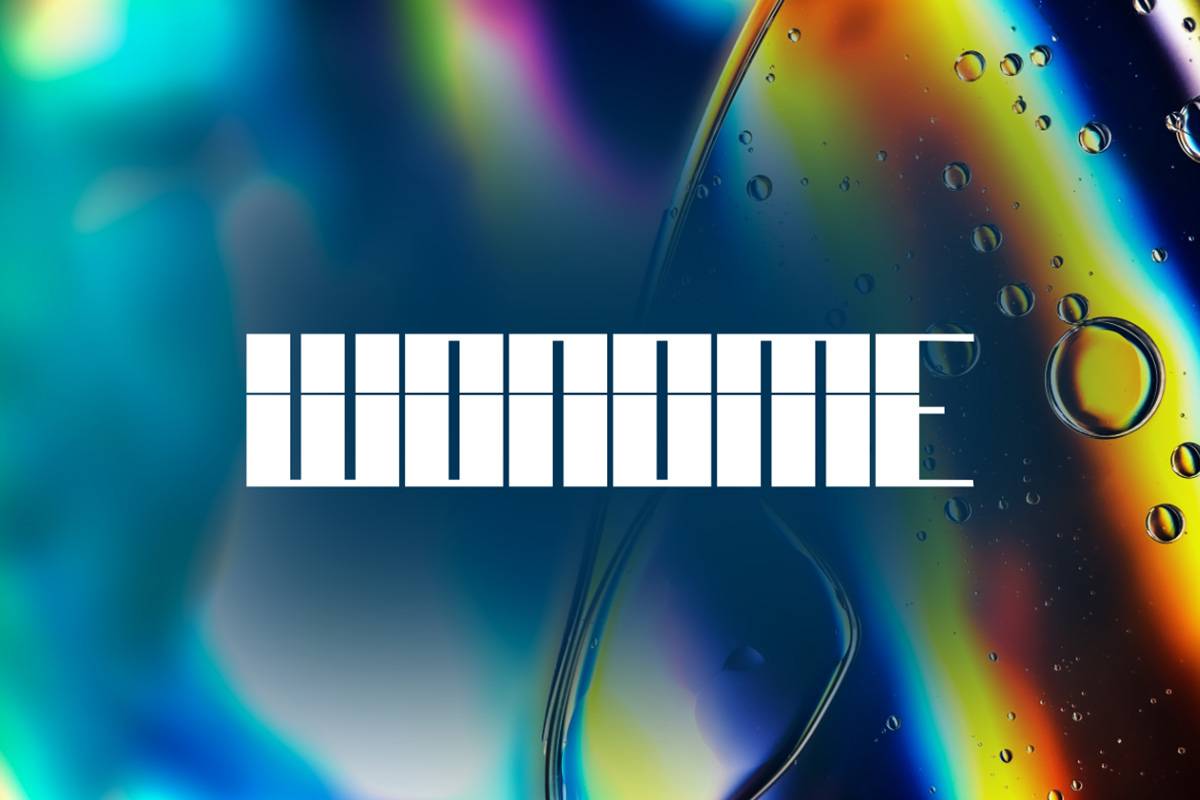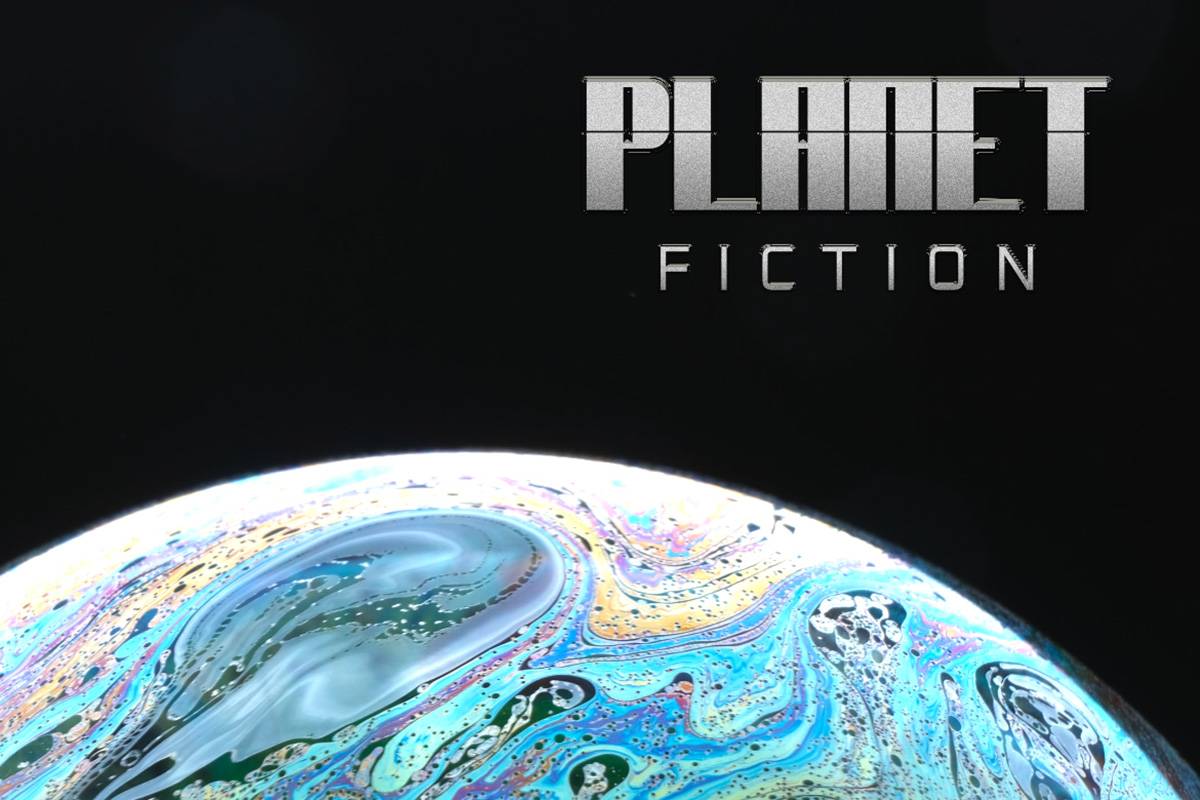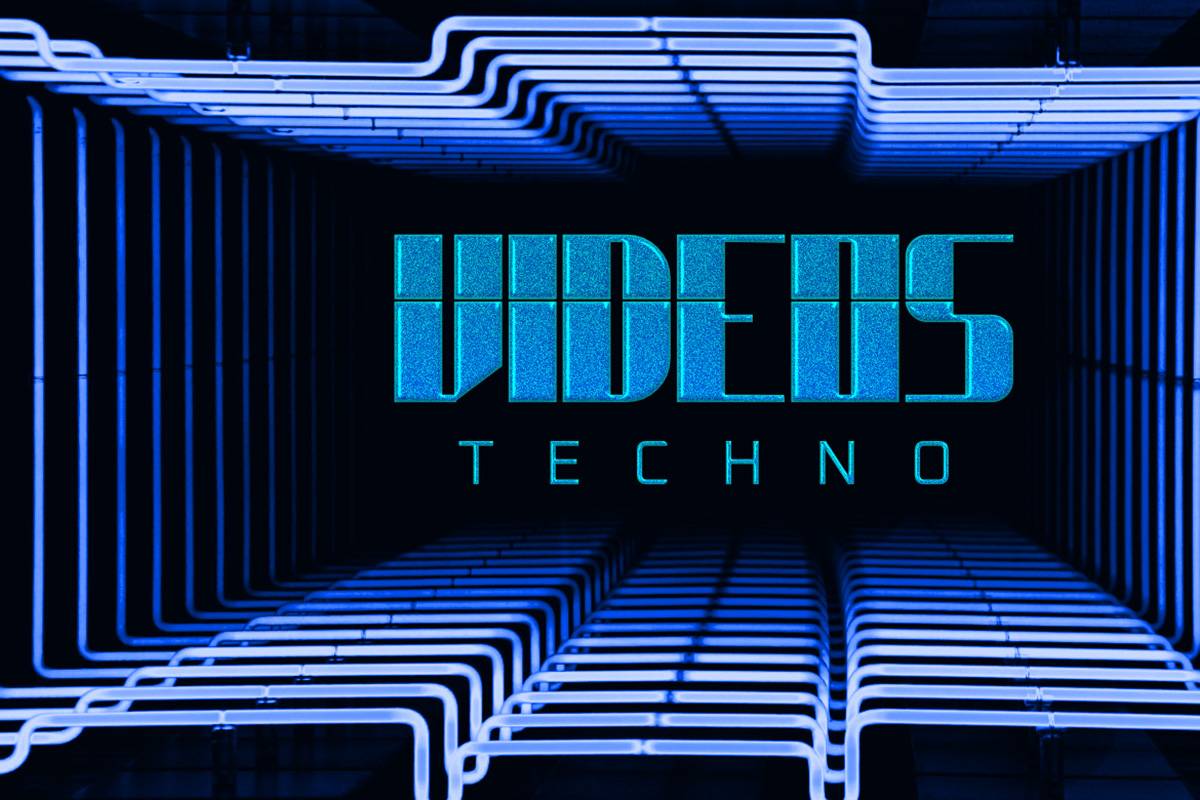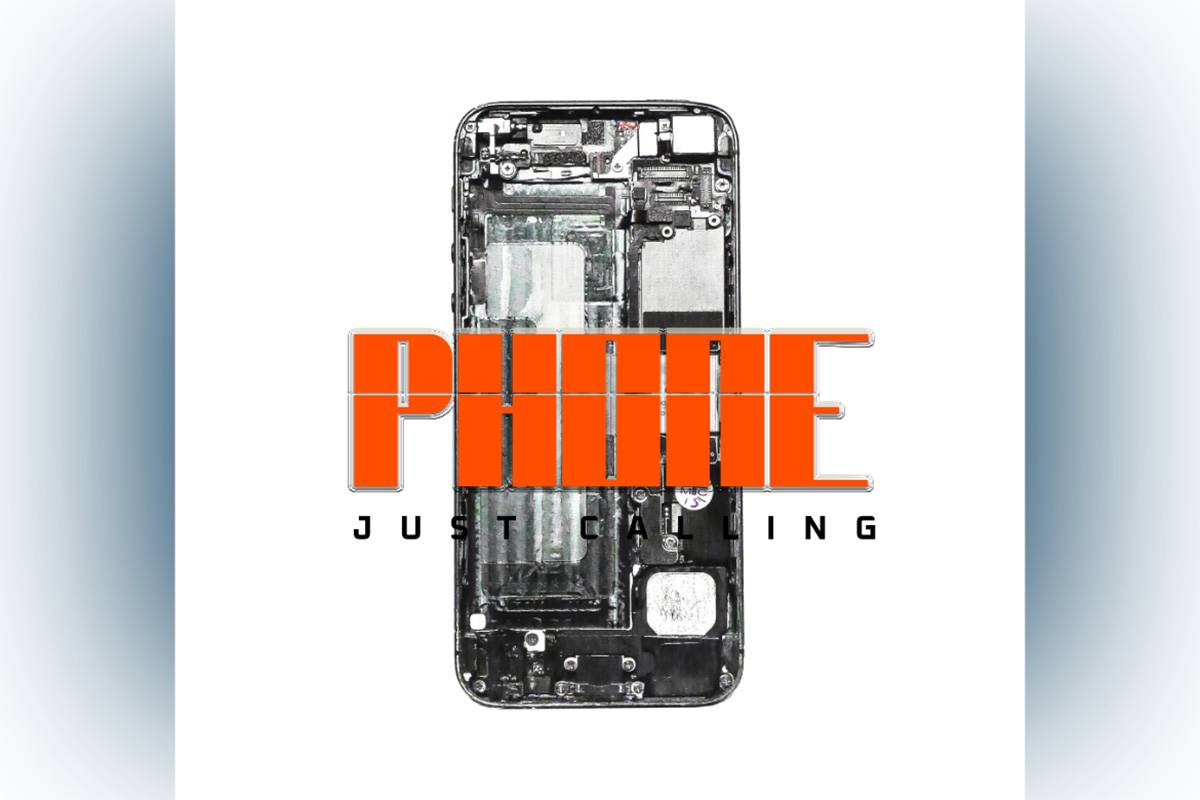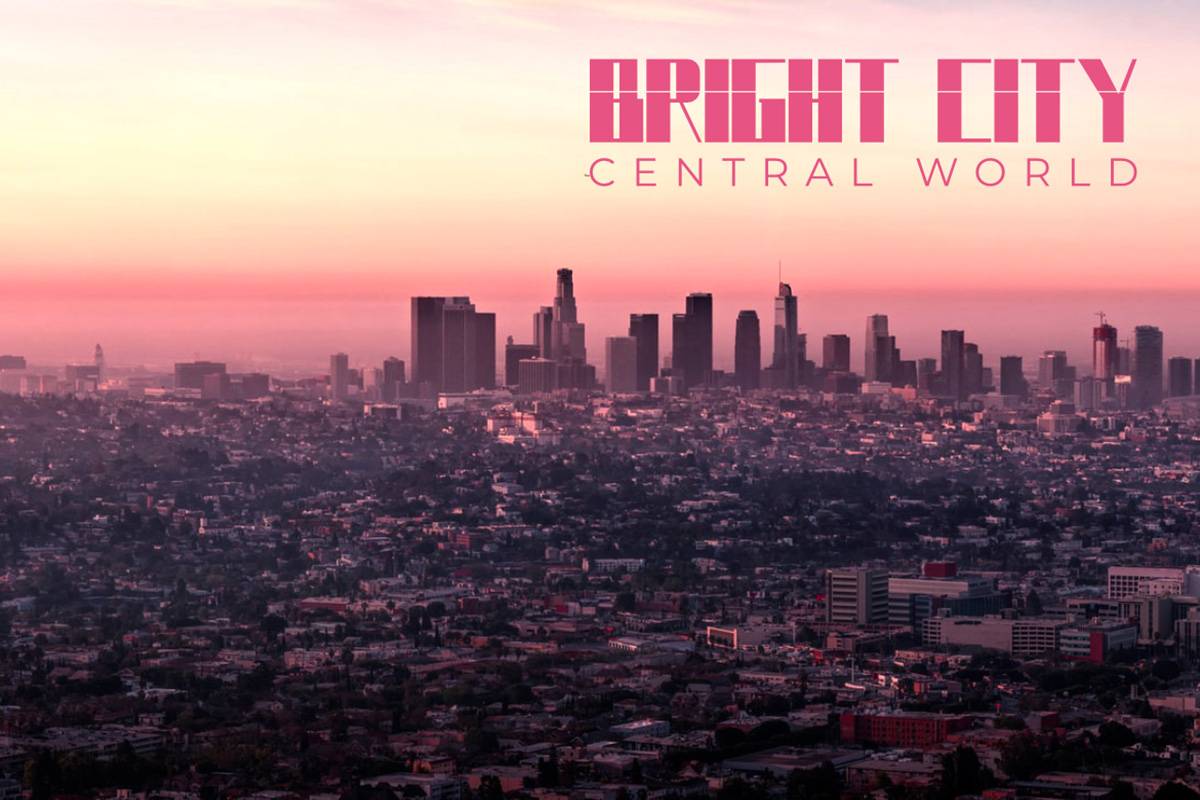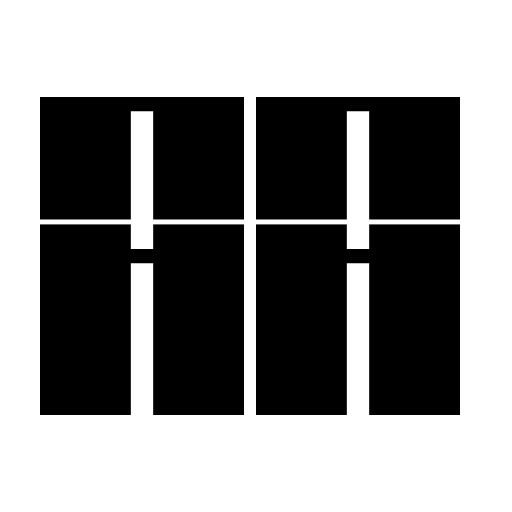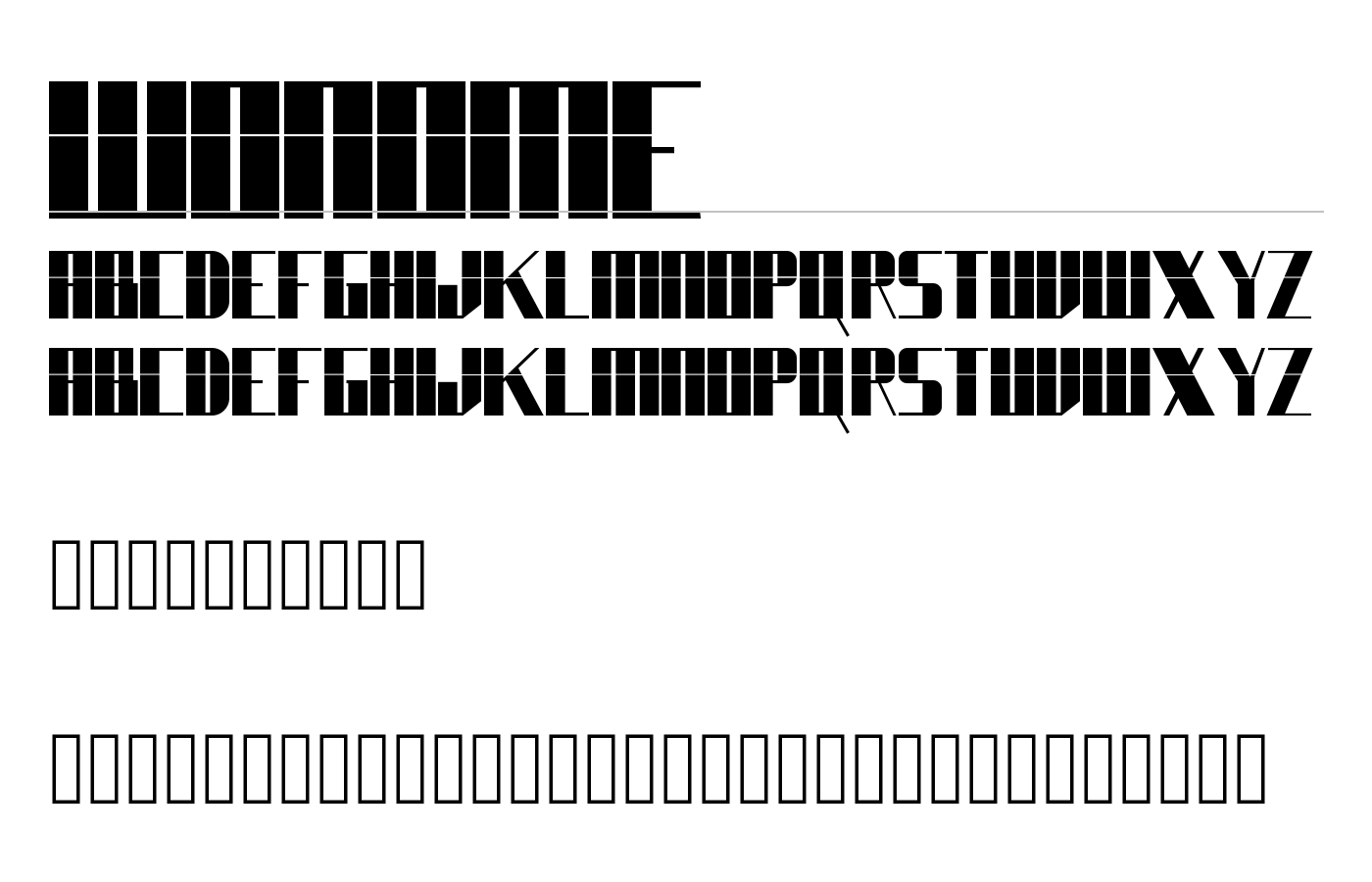
Wonome is a bold, condensed sans serif font with a distinctly modern and geometric style. Its tall, narrow letterforms and sharp angles give it a striking, avant-garde appearance, making it ideal for eye-catching headlines, logos, and branding that demand a strong, futuristic vibe. This font works best in display settings where its unique and dynamic character can stand out and make a memorable impact.
Wonome Font
About Wonome Font